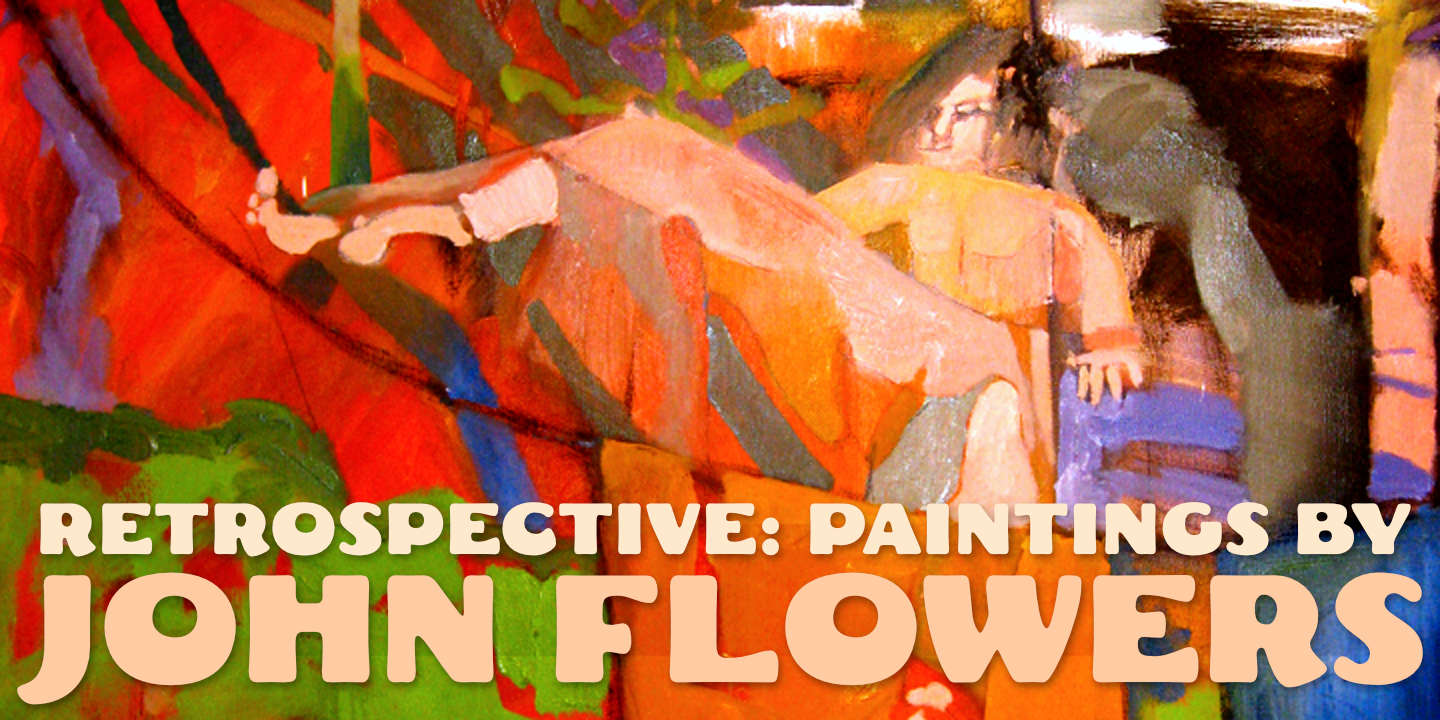
Fat Freddie
Fat Freddie™ is a bold, playful sans serif typeface. It features a warm, informal look with chunky letterforms, making it well-suited for fun headlines, posters, and retro-style showcards. It offers extensive multilingual coverage, supporting over 130 languages including Latin-based European alphabets, Cyrillic, and modern Greek. Original typeface name and designer unknown. See also: Goudy Stout.